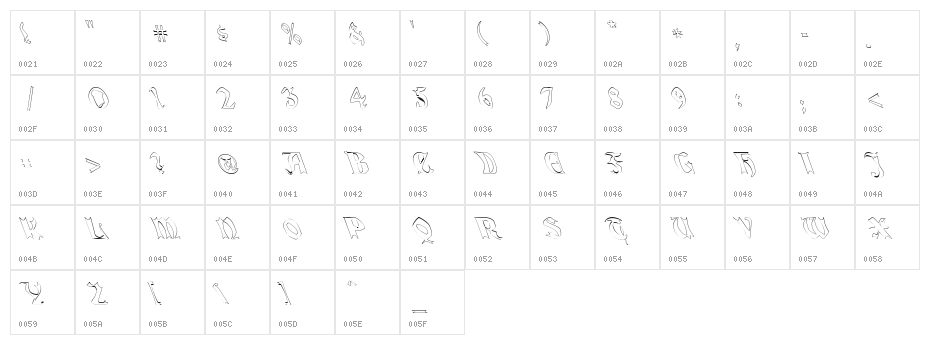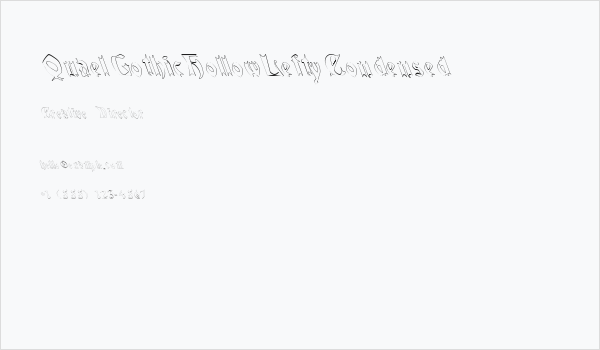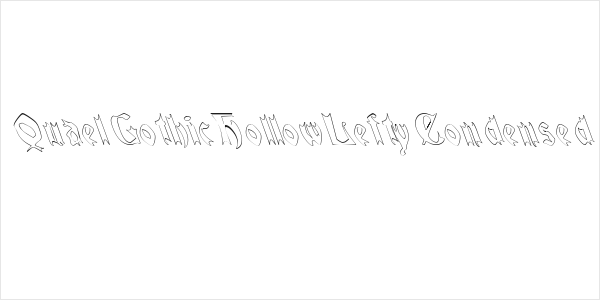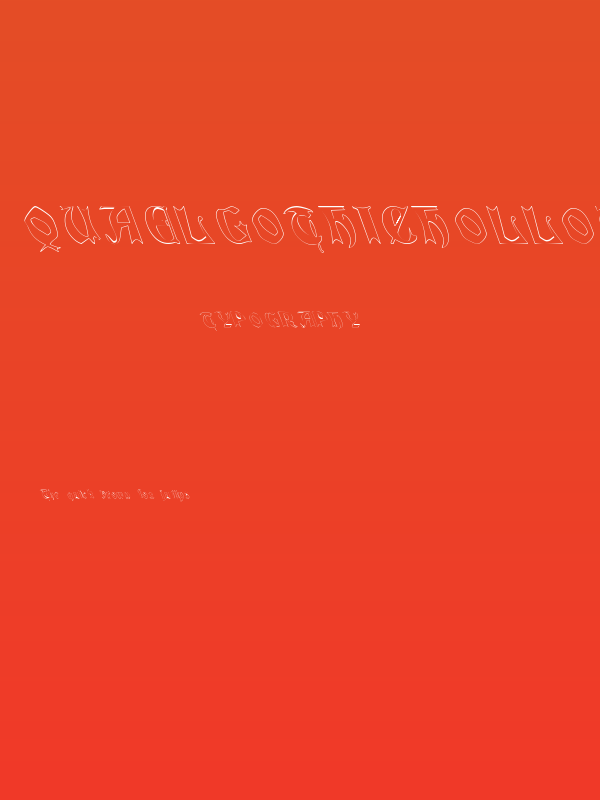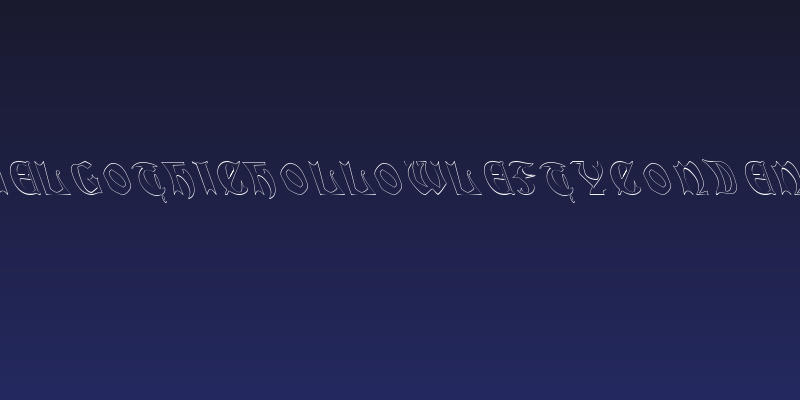
QuaelGothicHollowLeftyCondensed Font
QuaelGothicHollowLeftyCondensed Description
This font features a unique, hollow design with a condensed structure, giving it a distinctive and edgy appearance. The characters are stylized with sharp angles and curves, creating a dynamic and somewhat gothic feel. The uppercase and lowercase letters maintain a consistent style, with the uppercase being more pronounced. Numbers and special characters follow the same design principles, ensuring uniformity across all glyphs. The hollow nature of the font adds an interesting visual element, making it suitable for creative and artistic projects.
| Overall Style | Gothic, Decorative |
| Use Case | Headlines, Logos, Artistic designs |
| Proposed Projects | Ideal for posters, album covers, and creative branding projects where a bold, artistic statement is needed. |